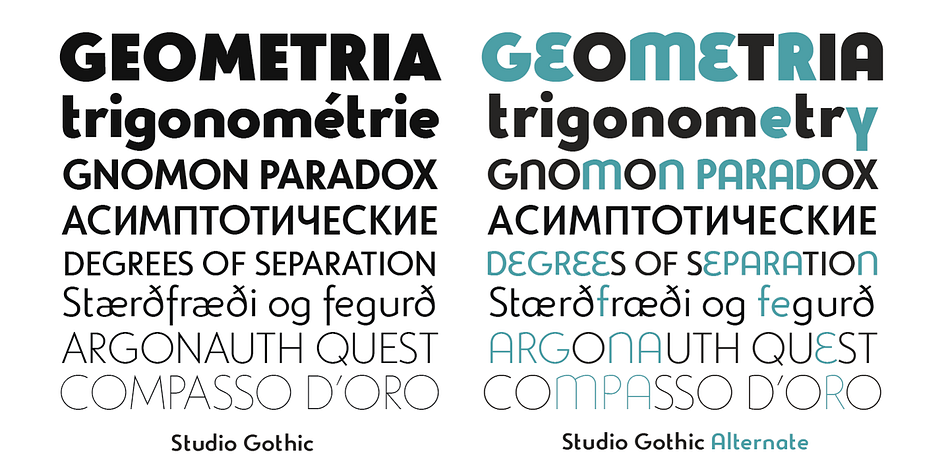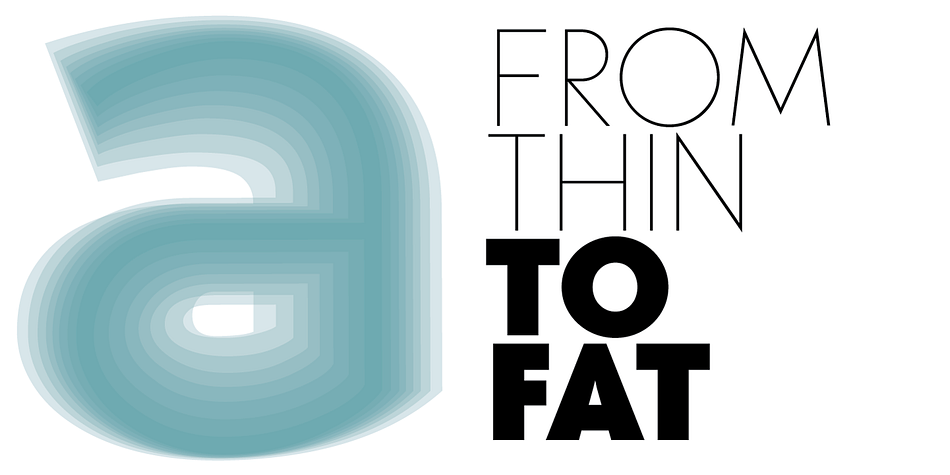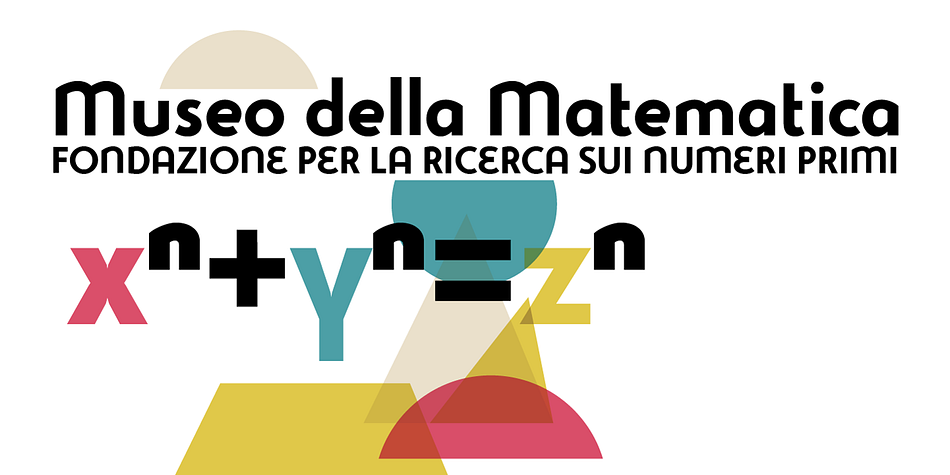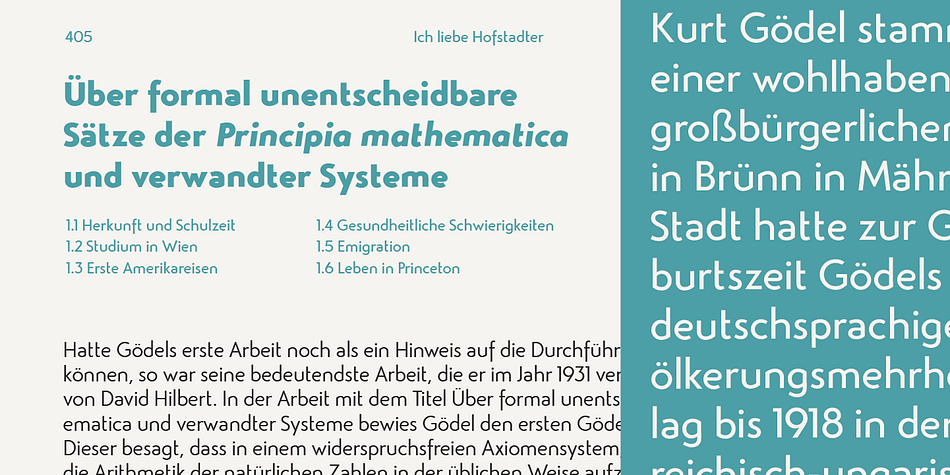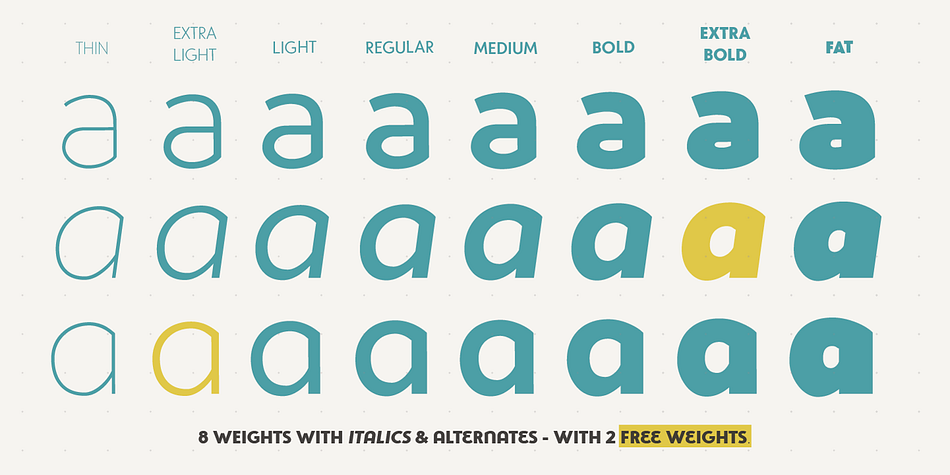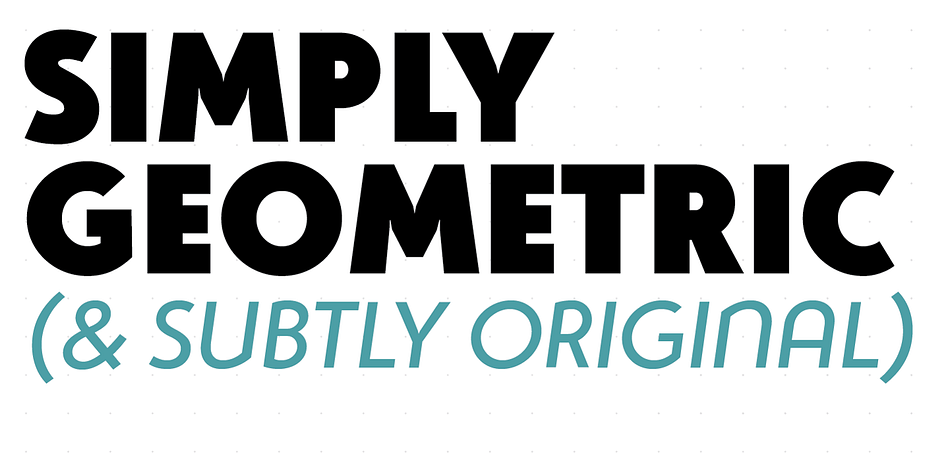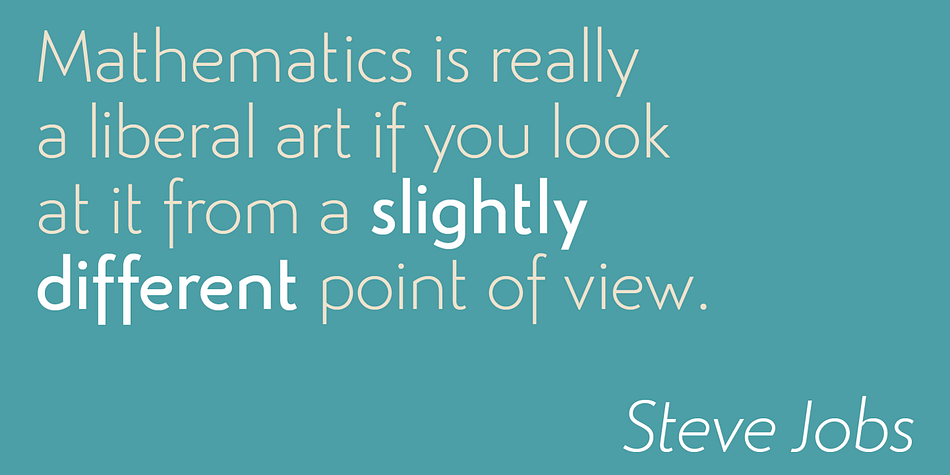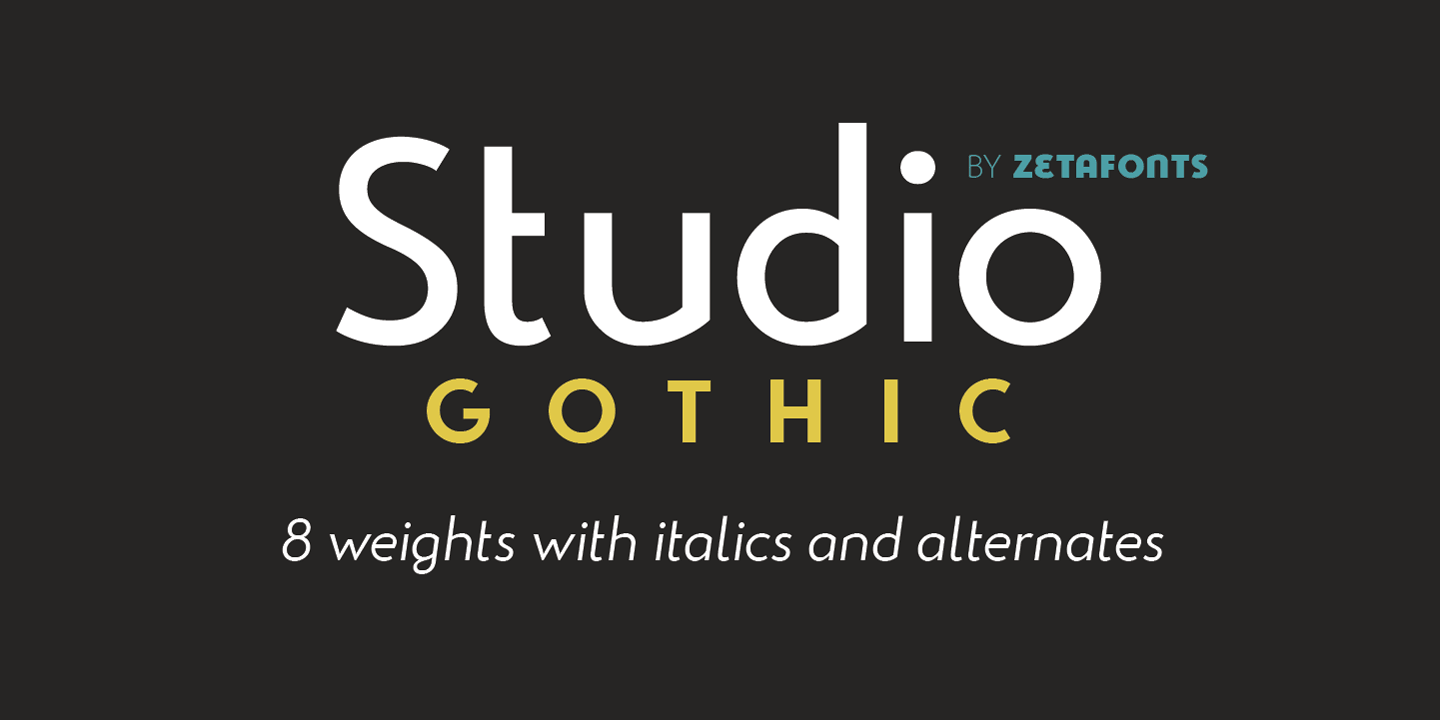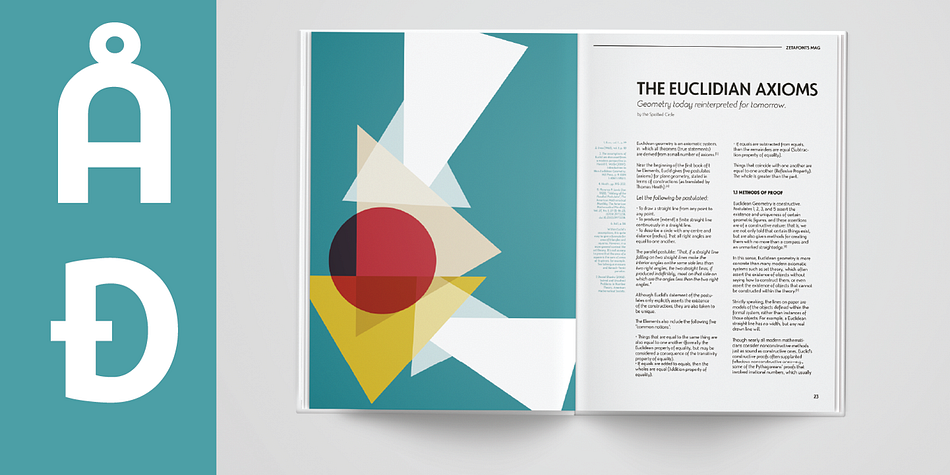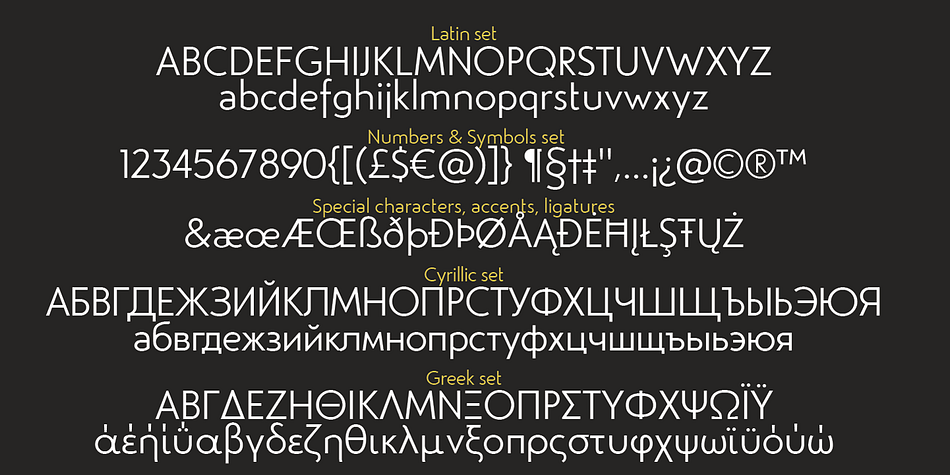
Designed by Francesco Canovaro and Cosimo Lorenzo Pancini, Studio Gothic is a sans serif font family. This typeface has twenty-four styles and was published by Zetafonts.
Studio Gothic is a geometric sans typeface that takes inspiration from the ideas used by Alessandro Butti for his historical typeface Semplicità (simplicity in Italian) created in the 1930s.
More a reinvention than a revival, Studio Gothic keeps the minimal and bare design logic of the original typeface while proposing many original takes on letter shapes and proportions, with the aim to create a typeface that looks classic but unexpected, slightly modernist but still contemporary and fresh. These principles have been used also in the design of the companion italics, featuring slight calligraphic elements and making the italic weights suitable for display and logo usage. These same elements have been incorporated in the Studio Gothic Alternate family, giving you additional options to experiment with letter shapes and moods.
Each of Studio Gothic variant features a range of eight weights from thin to fat, coverage of over forty languages using the Latin alphabet plus Greek and Cyrillic and a wide array of open type features.